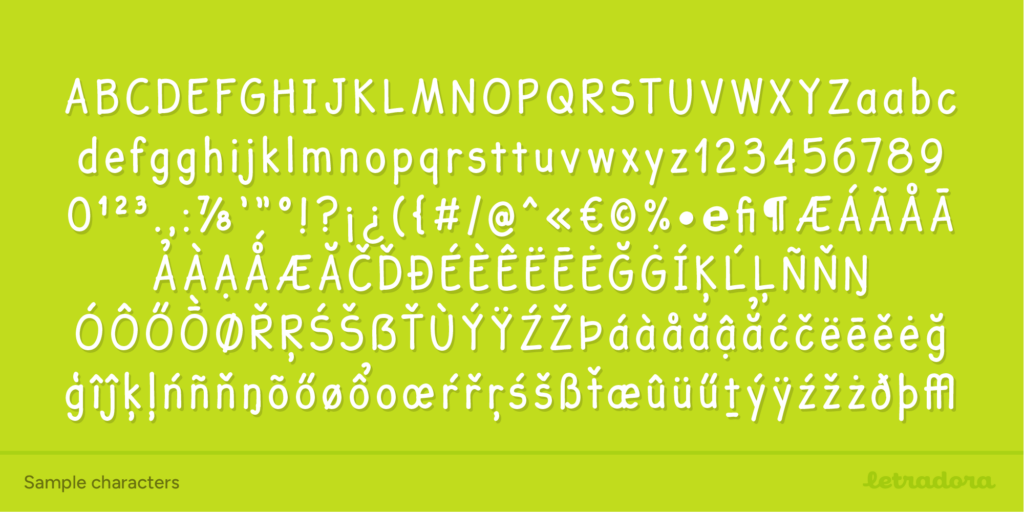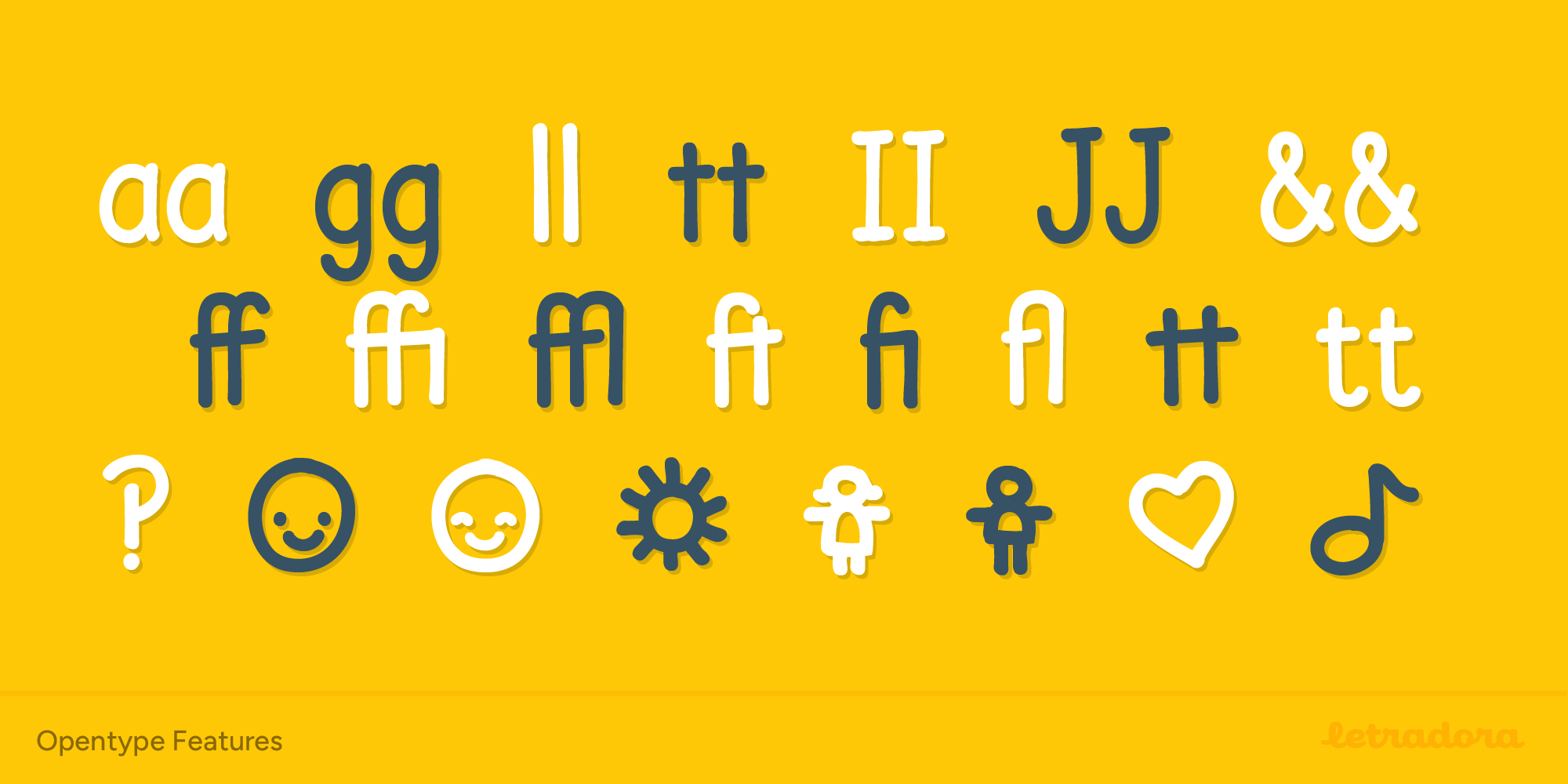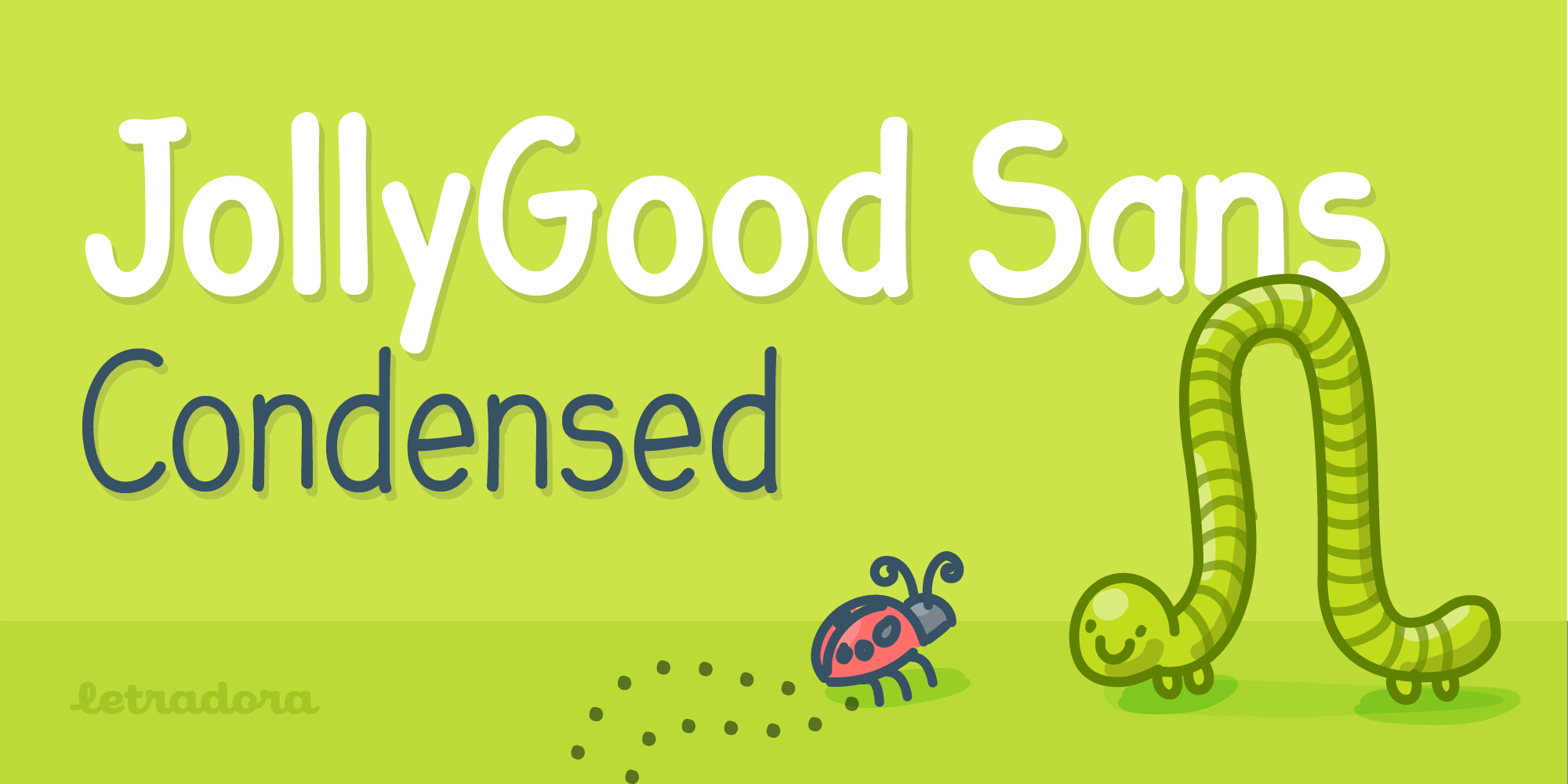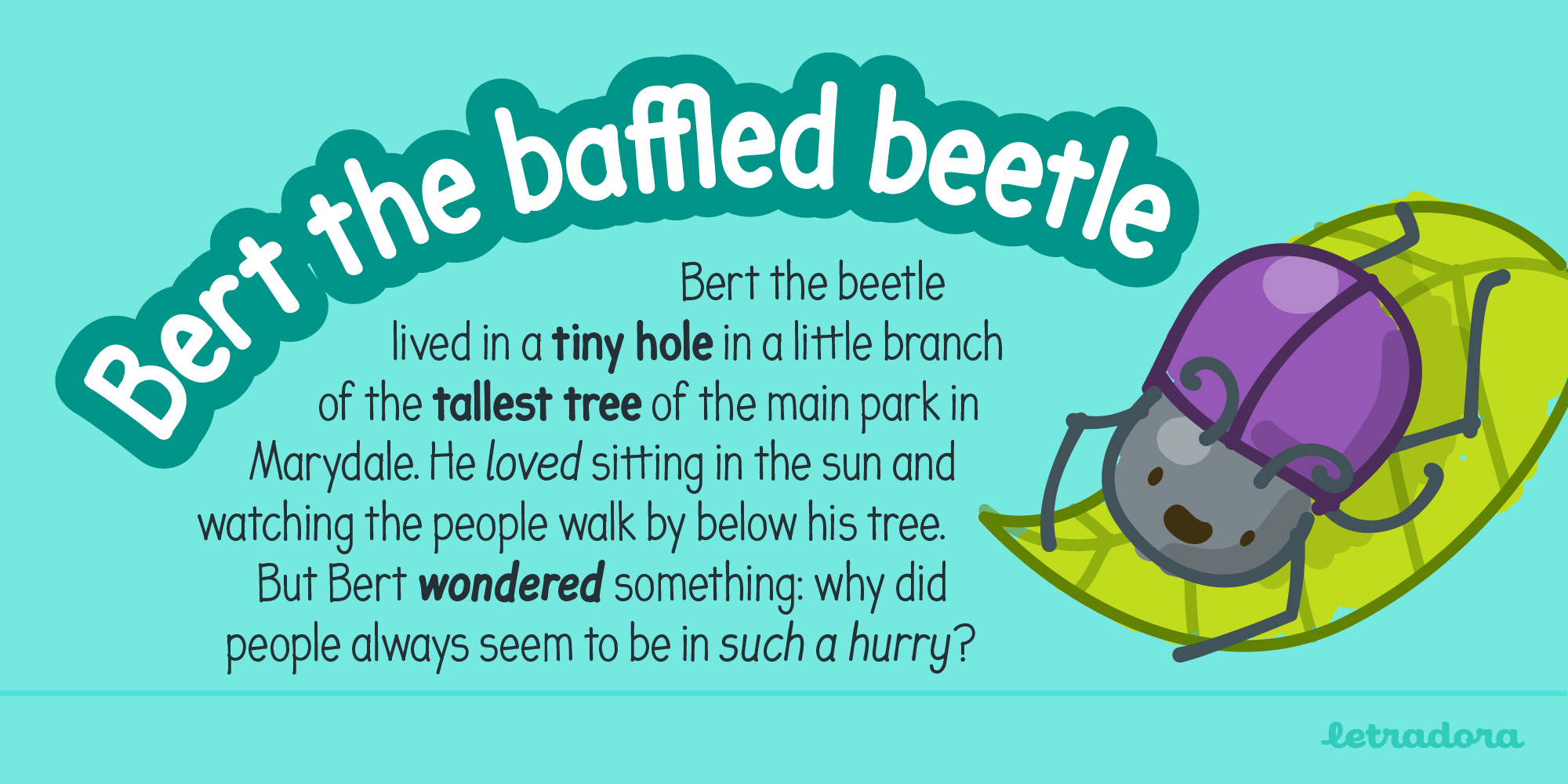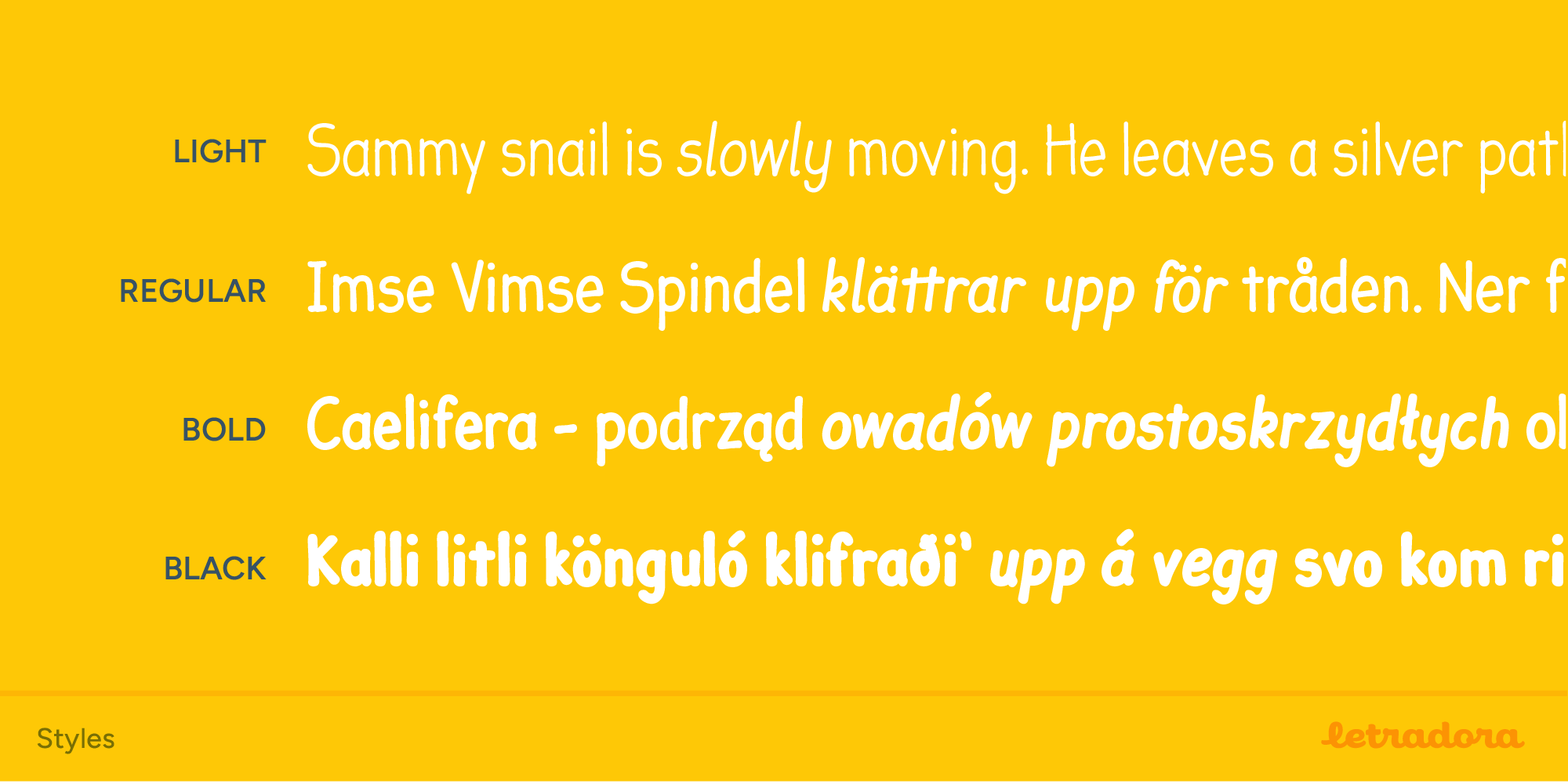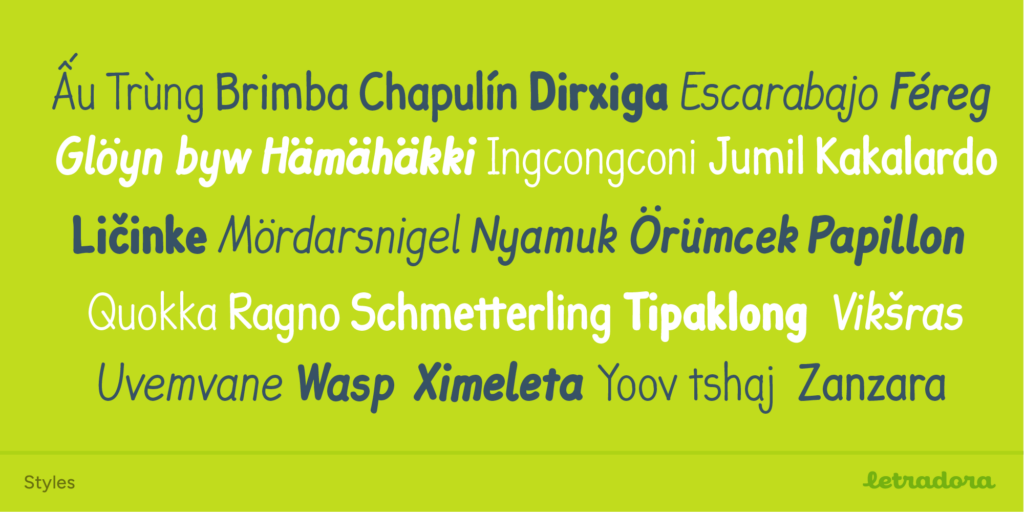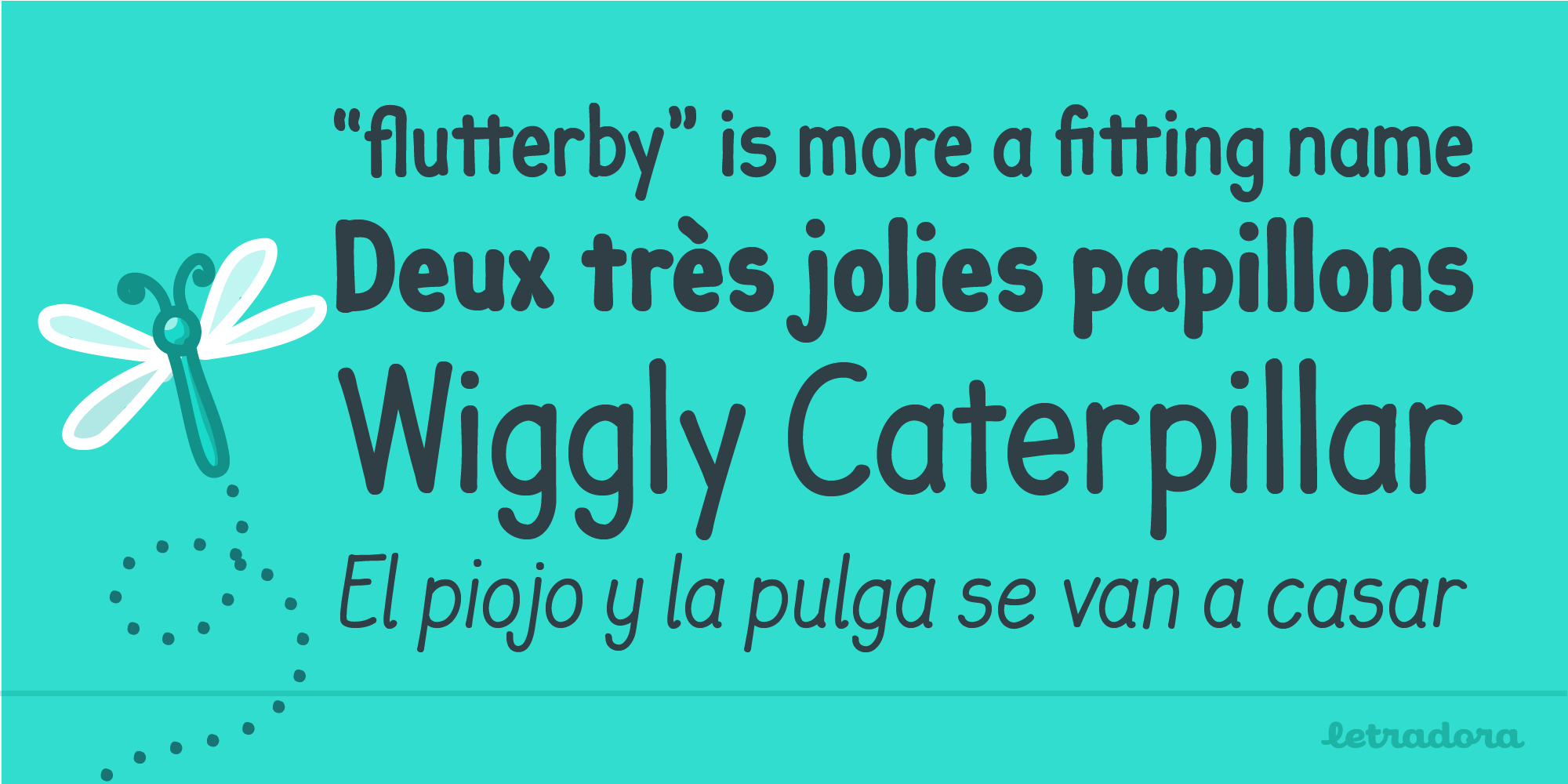
JollyGood Sans Cond
A narrow comic font
JollyGood Sans Condensed is another member of the JollyGood family. This is a narrower comic font that allows you to fit a lot of text, while still being fun & legible. It is a complete family with 4 weights in regular and italic (8 fonts in total). It has an amazing character set, with support for most european languages, as well as alternates and ligatures.
JollyGood Sans Condensed is suitable for packaging, children’s books, greeting cards or wherever you need a fun touch in your text.